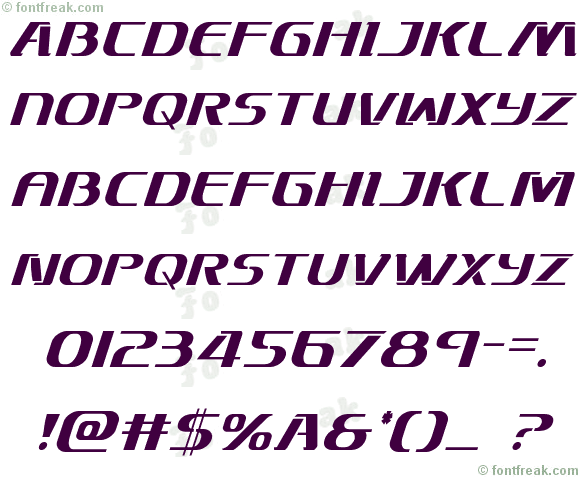
Sky Marshal Condensed
About Sky Marshal Condensed
Sky Marshal Condensed, designed by Daniel Zadorozny, is a striking display font that belongs to the sans-serif category. Released in 2015, this typeface features a bold and condensed structure that commands attention. Its strong geometric forms and minimalistic design make it ideal for modern applications. The font displays a consistent stroke weight, which contributes to its legibility while maintaining a visually appealing contrast that enhances its overall impact. The spacing is tight, enabling it to fit seamlessly into various layouts without sacrificing clarity.
This versatile font excels in a variety of use cases. It is particularly effective for movie posters, where its boldness can evoke a sense of drama and excitement. Additionally, it works well for branding projects, especially for tech companies or startups looking to convey a contemporary and innovative image. Restaurant menus can also benefit from the font's modern aesthetic, providing an eye-catching way to present dish names and descriptions. Furthermore, it can be utilized in social media graphics, allowing content creators to make their posts stand out in a crowded digital landscape.
What sets Sky Marshal Condensed apart is its ability to blend boldness with elegance, making it suitable for both serious and playful contexts. The font's unique character and strong visual presence ensure that it leaves a lasting impression, making it a valuable addition to any designer's toolkit. For those interested, the Sky Marshal Condensed font free download offers an excellent opportunity to enhance your projects with this distinctive typeface.